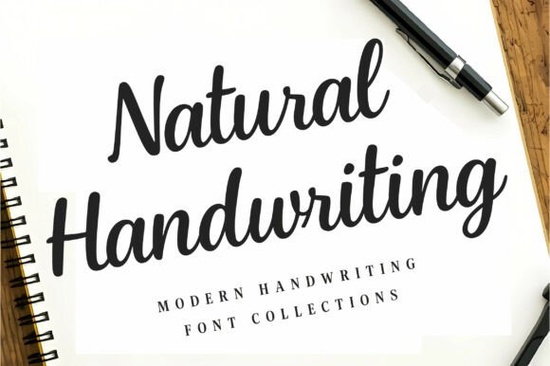
If you've ever wanted a typeface that looks like real, everyday handwriting, the Natural Handwriting Font is worth a close look. It's a modern script typeface designed to feel like genuine penmanship the kind you'd see in a personal letter or a quick note jotted down in the margins. No stiff, overly polished letterforms here. Just clean, flowing writing that reads well on screen and in print.
This font works well for designers, crafters, print-on-demand sellers, and small business owners who want their projects to feel approachable and personal without sacrificing clarity.
What Does the Natural Handwriting Font Look Like?
The style is casual but intentional. The letters connect in a natural flow, similar to how a person would write quickly with a pen. It has a moderate weight not too thin, not too bold which keeps it legible at both small and large sizes.
Think about the difference between a typed letter and a handwritten note. The typed version feels formal and distant. A handwritten one feels immediate and sincere. That's exactly the feeling this typeface brings to your designs.
Compared to other script fonts in the same collection, like bolder, thicker script styles, the Natural Handwriting font stays light and understated. It doesn't shout for attention. Instead, it quietly draws readers in with its authenticity.
What Can You Use a Handwriting Font For?
This is where it gets practical. Handwriting fonts are surprisingly versatile. Here are some real-world uses that work especially well:
- Branding and logos especially for small businesses, boutiques, bakeries, and lifestyle brands that want a warm, human feel
- Thank-you cards and stationery perfect for Etsy sellers and craft enthusiasts
- Blog headers and website accents adds personality without being distracting
- Social media graphics quotes, announcements, and story templates that feel personal
- Notebooks and journals covers and interior pages that look hand-lettered
- Watermark signatures a subtle, professional way to mark your work
- Print-on-demand products mugs, tote bags, t-shirts, and wall art
For personalized marketing materials like postcards, flyers, or packaging inserts, a handwriting font creates an immediate connection with the person reading it. It says, "a real person made this."
Does a Handwriting Font Actually Look Realistic?
Some script fonts look obviously digital. The curves are too perfect, the spacing is too even, and the result feels artificial. A good handwriting font avoids that trap by mimicking the small imperfections and varied rhythms of natural writing.
The Natural Handwriting font does this well. The connections between letters feel organic, and the overall rhythm of a line of text mimics how a hand would actually move across a page. It's one of those fonts where, at a glance, you might not realize it's a typeface at all.
That said, it's still a designed font meaning every character has been carefully crafted for consistency and legibility. You get the warmth of handwriting with the reliability of professional typography. For more ornate options, you might also explore elegant enchanting scripts or a cherry-inspired script depending on the mood of your project.
Which Projects Pair Well With This Style?
If your work involves any of the following, this font fits naturally:
- Crafting and DIY projects scrapbooking, card making, vinyl decals
- Digital planners and journals headers, tabs, and section labels
- Wedding and event stationery invitations, menus, place cards
- Quote designs for wall art especially motivational or sentimental quotes
- Course materials and worksheets a friendly tone for educational content
If you're working on something more playful or whimsical like children's designs or greeting cards with a cheerful vibe a font like a colorful, rainbow-themed script might complement this handwriting style nicely as a secondary typeface.
How Do You Pair It With Other Fonts?
A handwriting font works best when it's balanced with a clean, simple companion. Here are a few pairing ideas:
- Sans-serif body text + handwriting font for headings keeps the page readable while adding personality at the top
- Handwriting font for quotes + serif font for surrounding text creates a nice contrast between formal and casual
- Two script fonts together use one for a main headline and another for accents, but be careful not to overdo it
You can browse the full handwriting font collection to see how different script styles work together and find the right combination for your project.
Quick Checklist Before You Use It
Before you start designing, keep these points in mind:
- Test readability at the size you'll actually use especially for small text on products
- Preview with real content type out an actual sentence, not just the font name